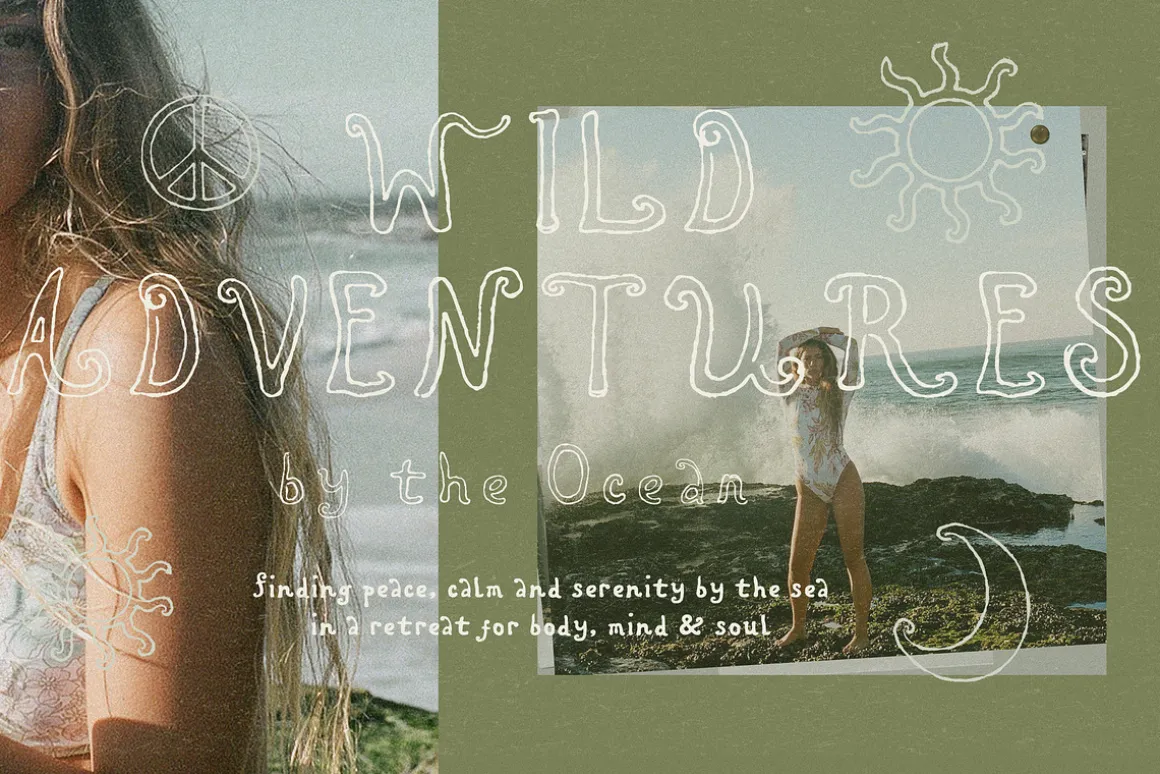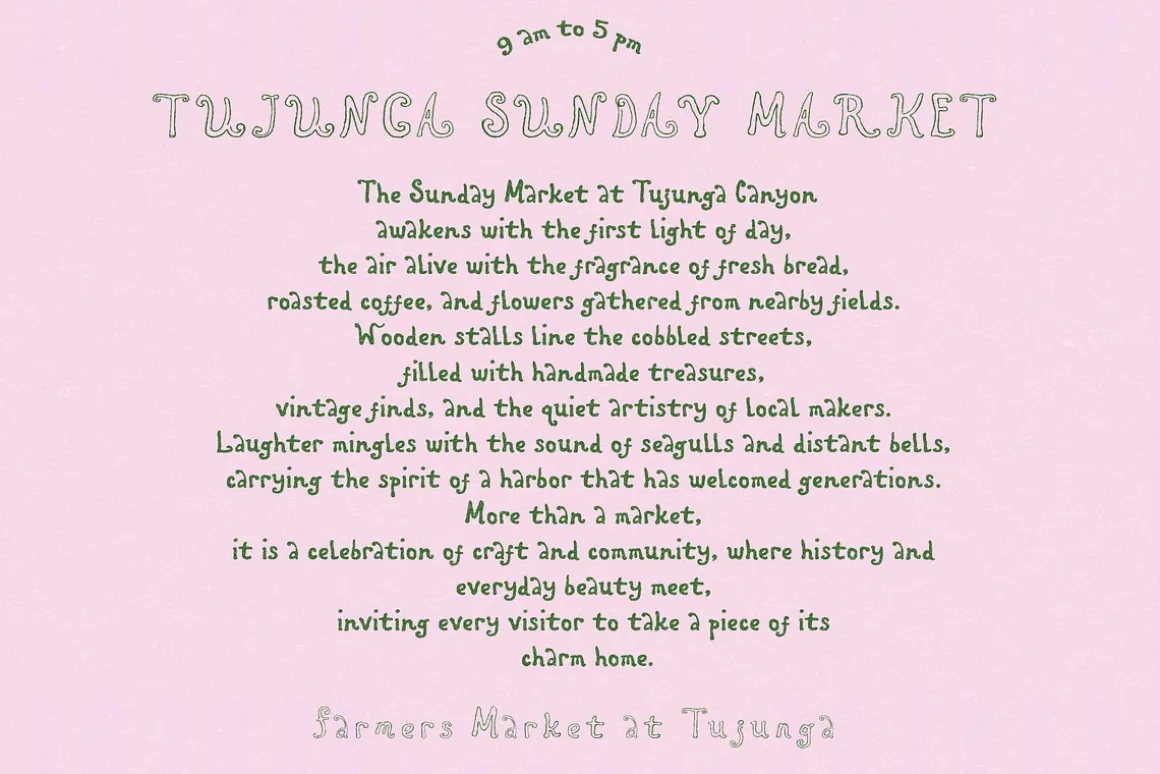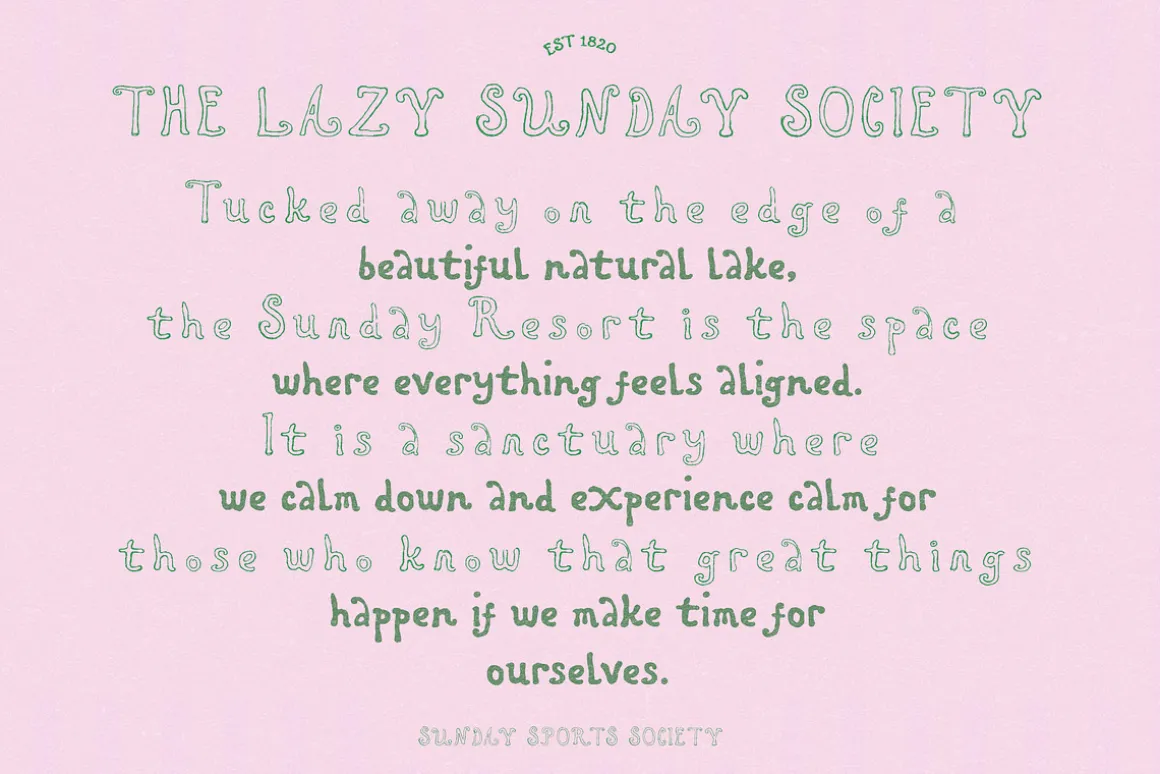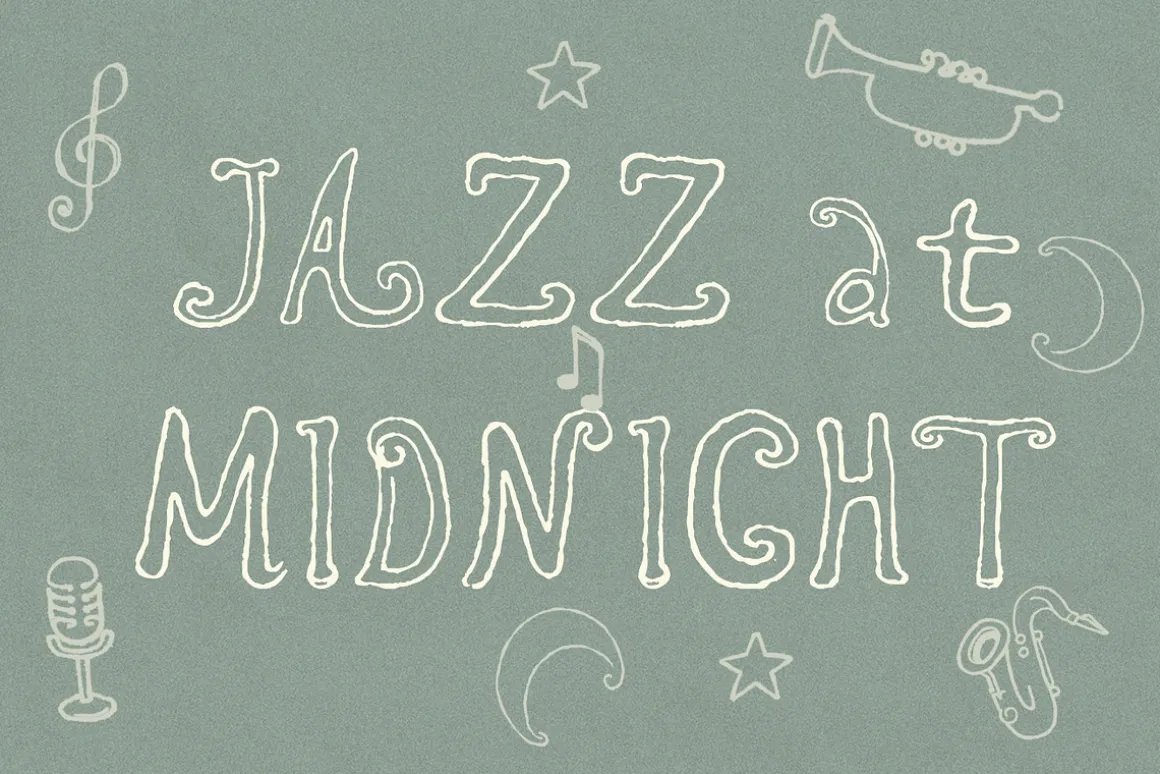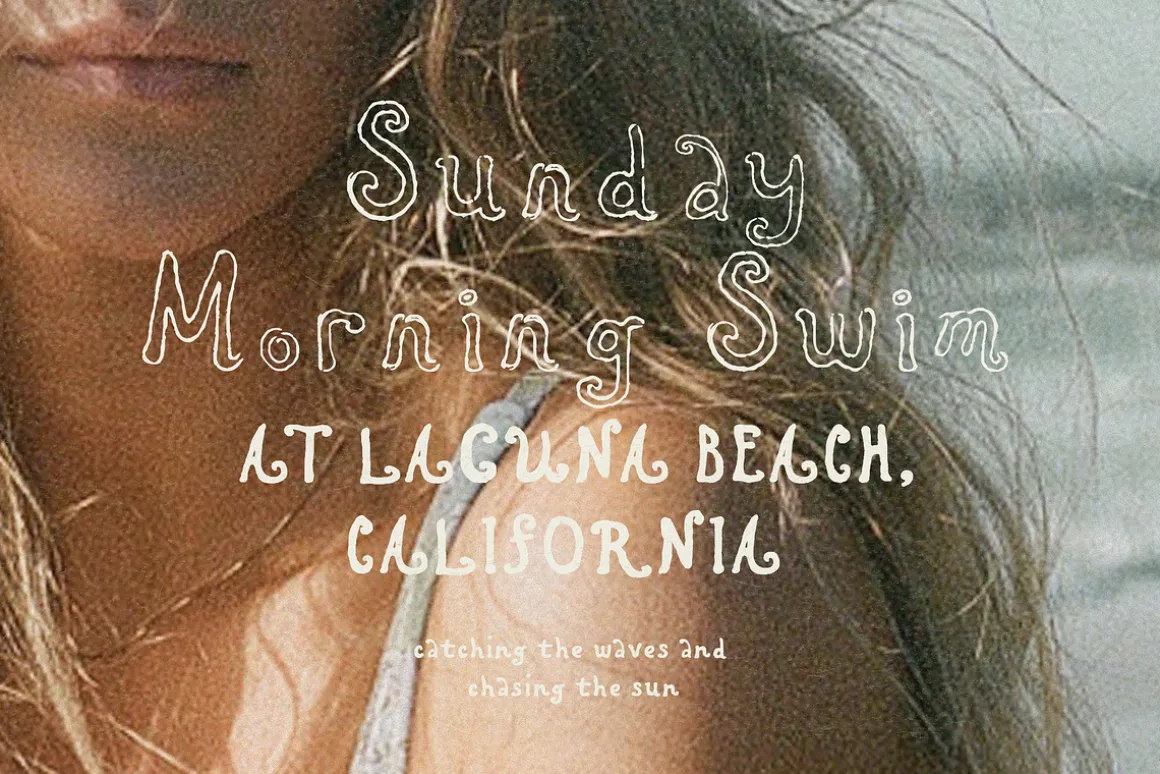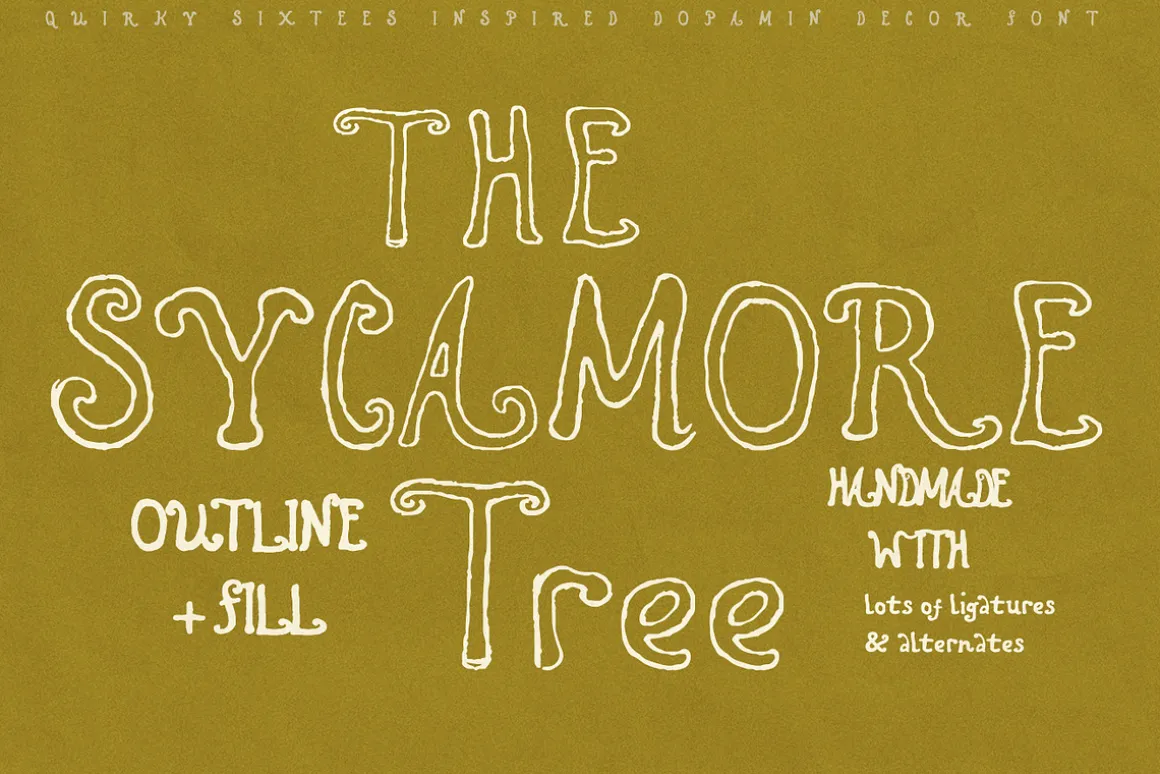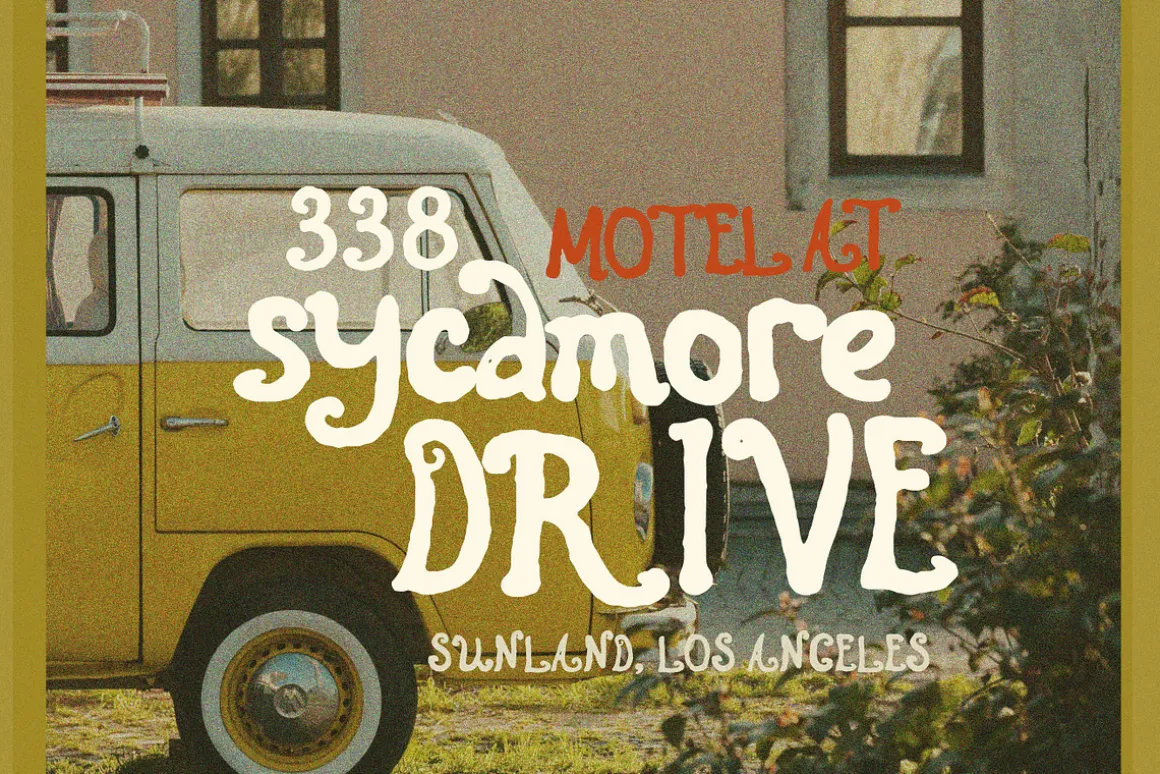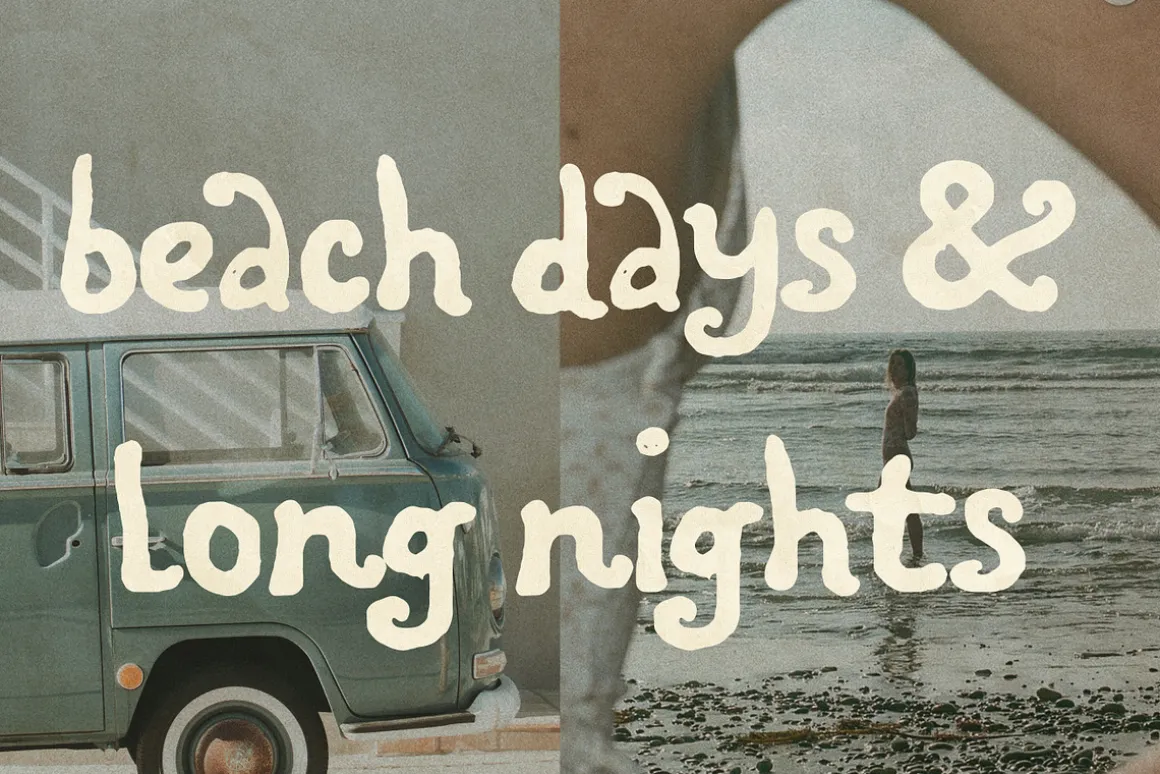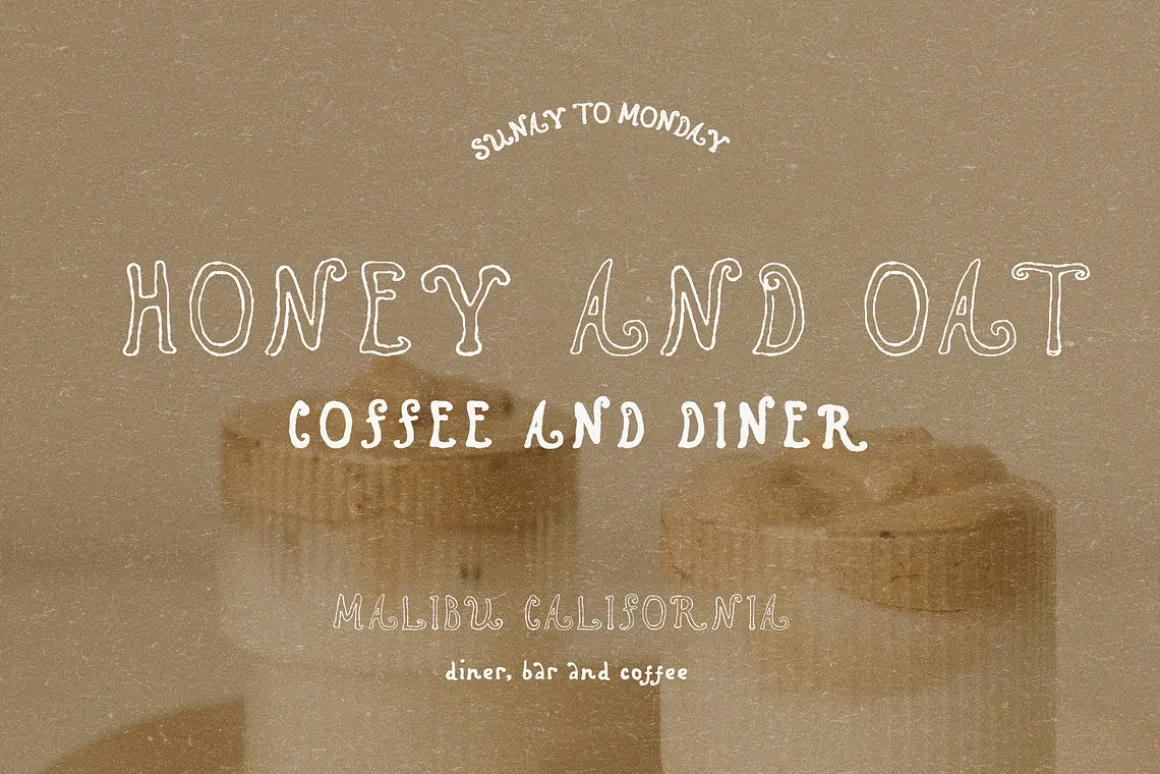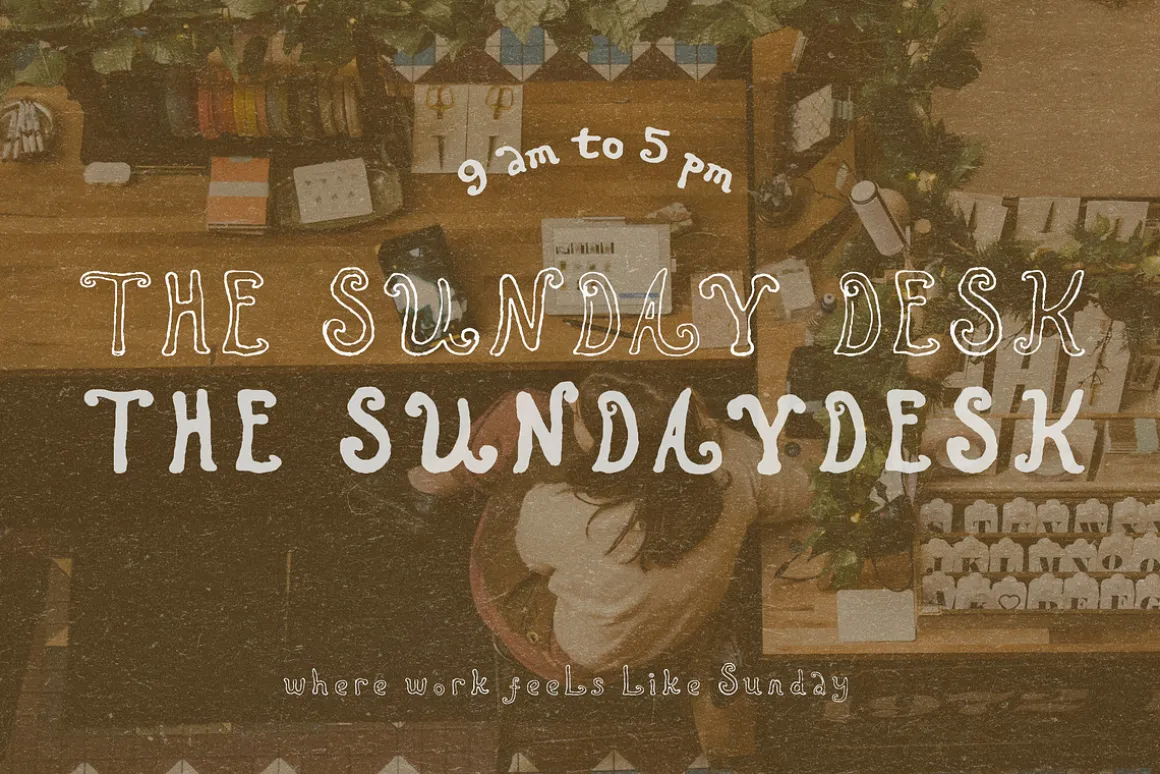
Discover a bold, artsy typeface with a handcrafted feel, nurtured by Californian spirit and 70s poster culture. Sycamore Tree comes with a filled bold style and its signature outlined version, made to instantly add character, warmth, and a slightly hippie-style vibe to your designs. Perfect for posters, album covers, branding, and any project that deserves a unique creative touch that is out-of-the-box.
With it’s intentionally hand drawn letters, this font brings an artsy edge and effortless retro look to your designs. Happy creating and feel the sun 🙂